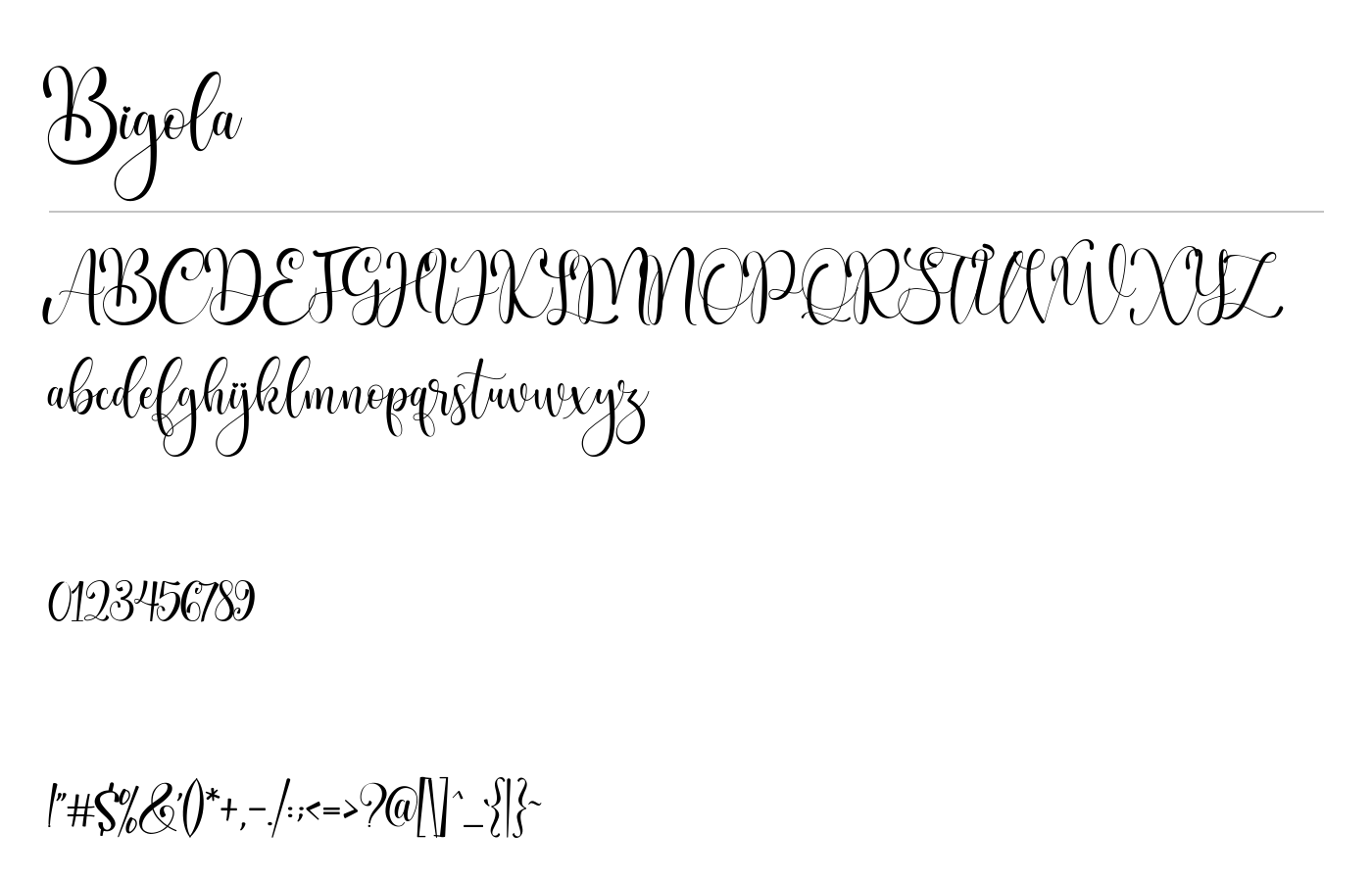
Bigola is an elegant script font characterized by its flowing, decorative strokes and high contrast between thick and thin lines, giving it a luxurious and sophisticated feel. With its intricate swashes and refined letterforms, it works beautifully for fashion branding, wedding invitations, and upscale logos where a touch of grace and artistry is desired. This font shines best in headlines or display use, adding a sense of personality and charm to any elegant design project.
Bigola Font
About Bigola Font
| Designer | Gilar Studio. |